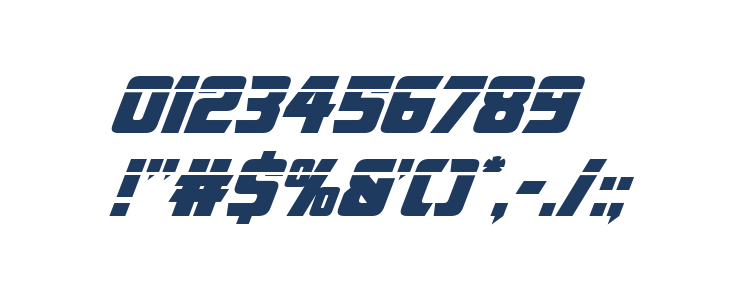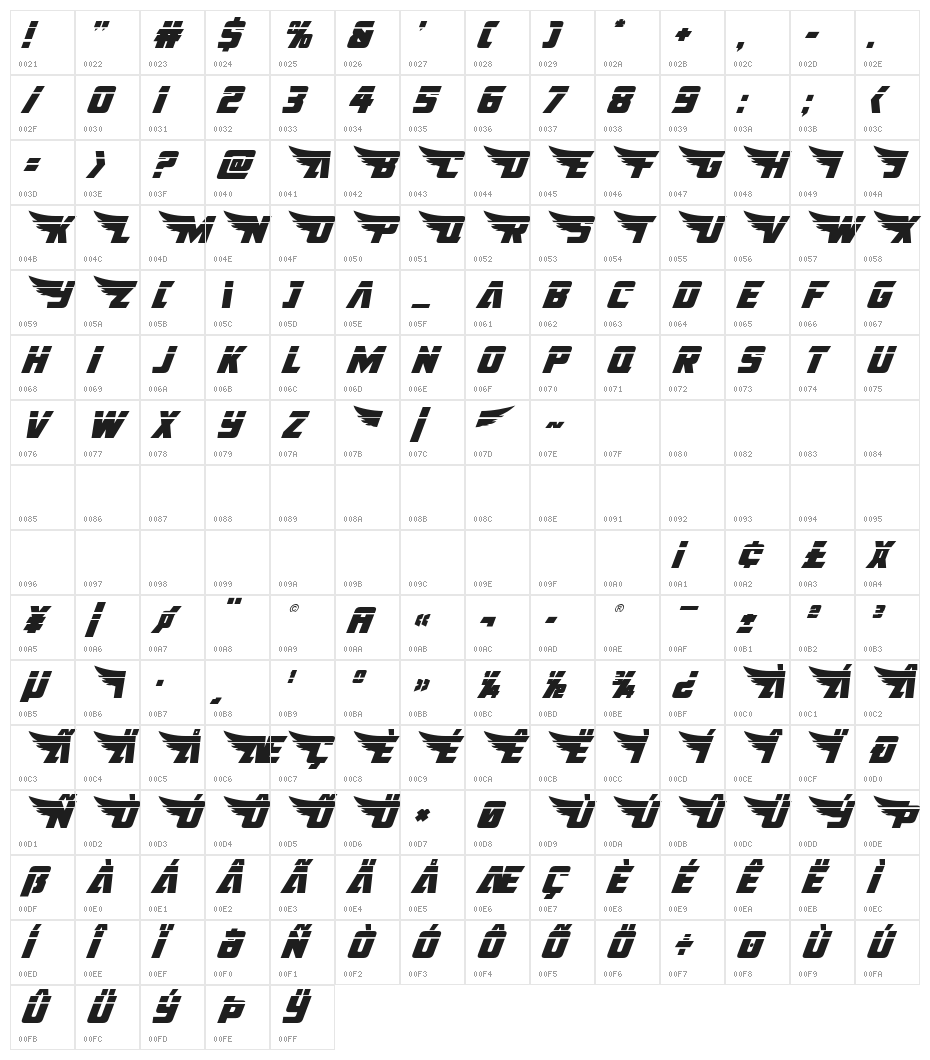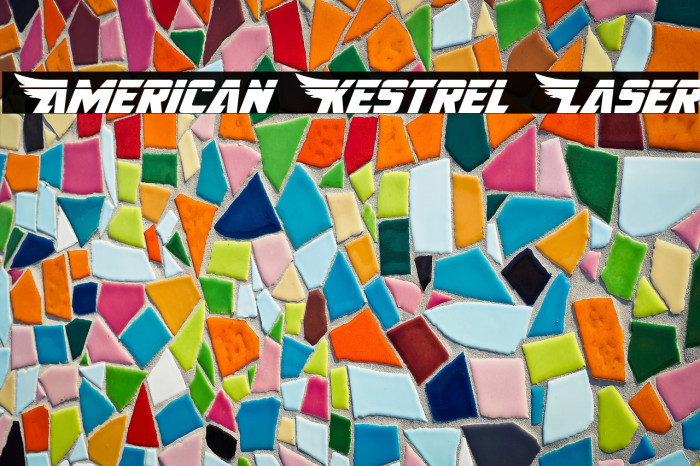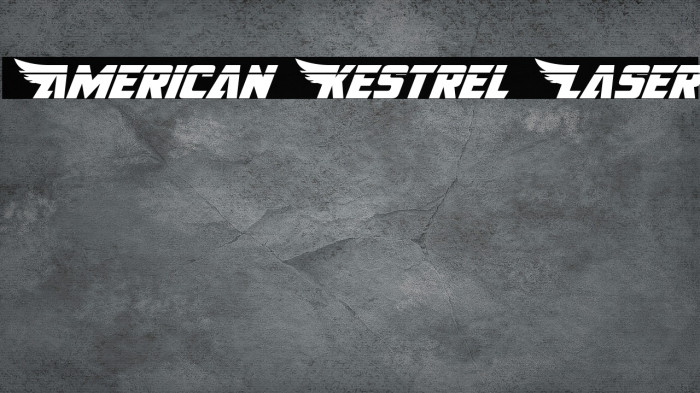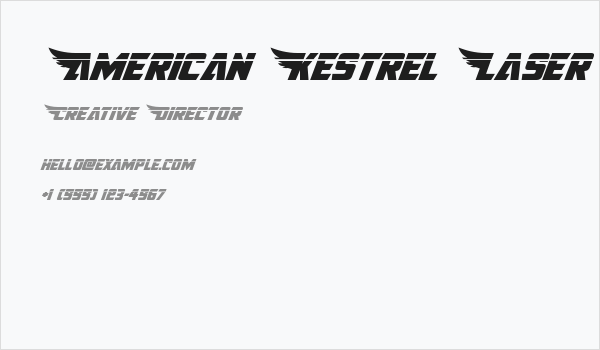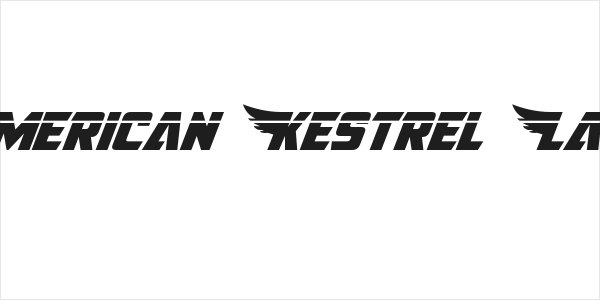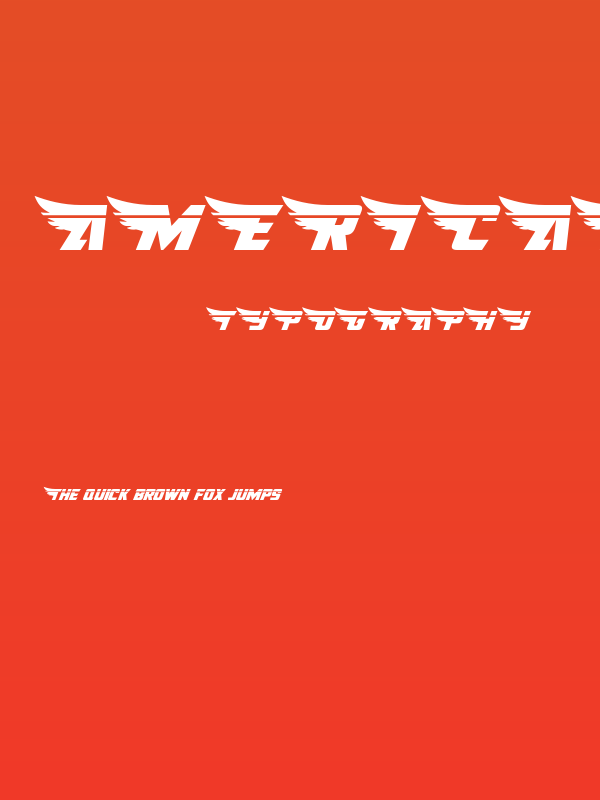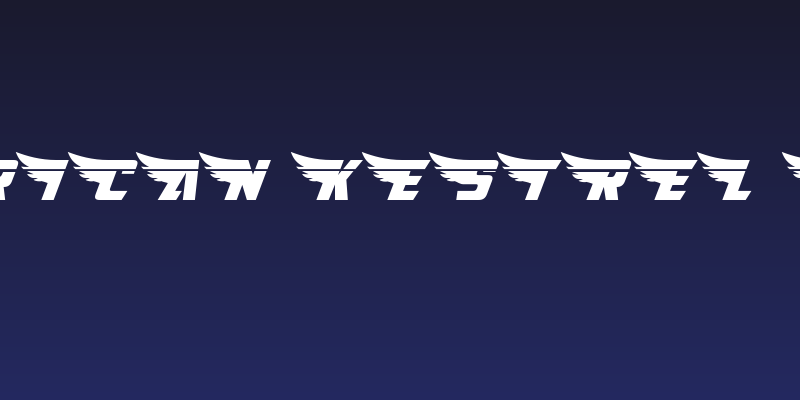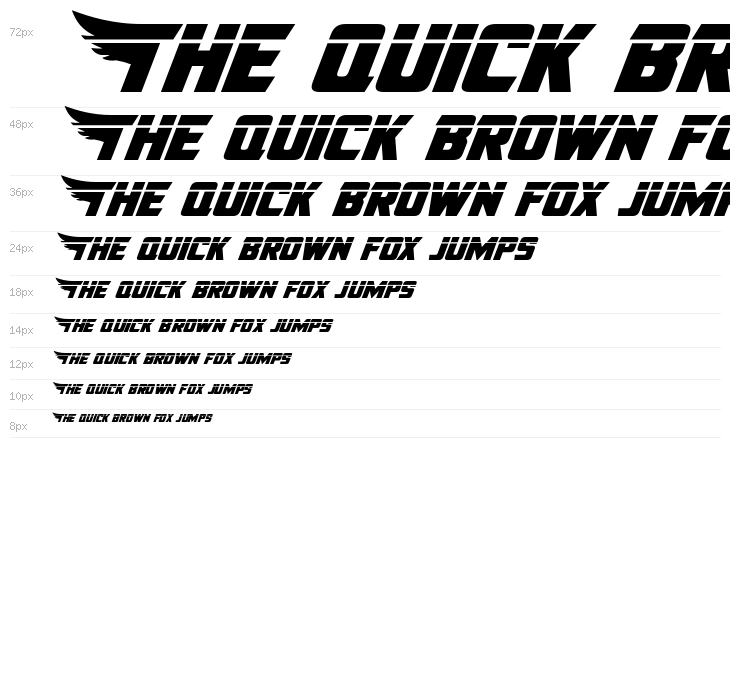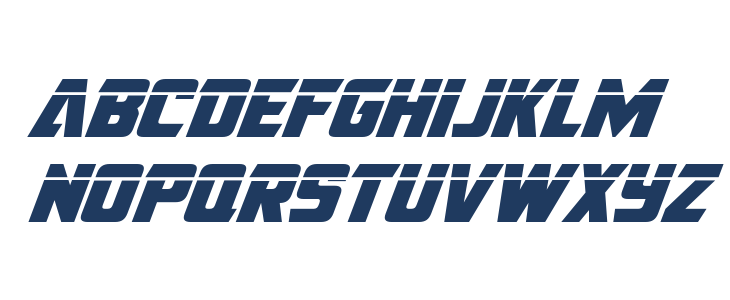
American Kestrel Laser Font
American Kestrel Laser Description
This font features a bold, dynamic design with a futuristic and aerodynamic feel. The characters are sharply angled and possess a strong sense of motion, reminiscent of speed and agility. Each letter is crafted with a unique wing-like extension, adding to its distinctive style. The uppercase letters are particularly striking, with a wide stance and a commanding presence. The numbers and special characters maintain this cohesive design, ensuring versatility across various uses. The overall aesthetic is modern and edgy, making it ideal for projects that require a bold statement.
| Proposed Projects | Ideal for sports branding, automotive designs, video game titles, and futuristic-themed posters. |